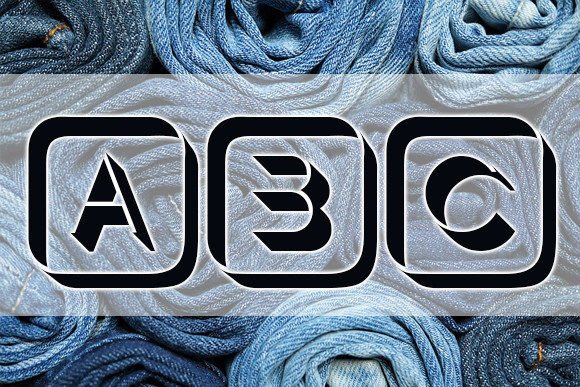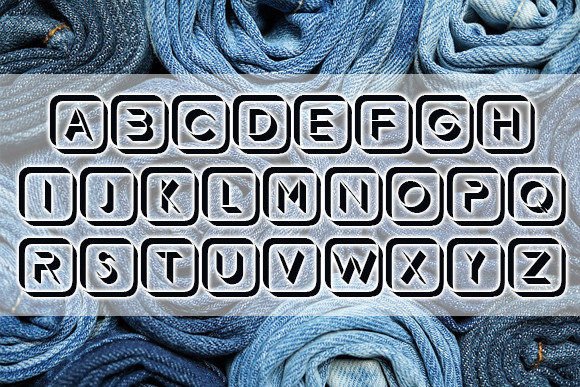
Introduction to Demode Capitals Font
Demode Capitals is a superb all-caps font that will make your designs look stunning.
Use this font on posters, flyers, and t-shirts .
Key Features of Demode Capitals Font
Why Choose Demode Capitals Font?
Demode Capitals Font offers exceptional quality and versatility, making it a valuable addition to your design toolkit. Whether you’re creating for personal projects or commercial use, Demode Capitals Font delivers professional results.